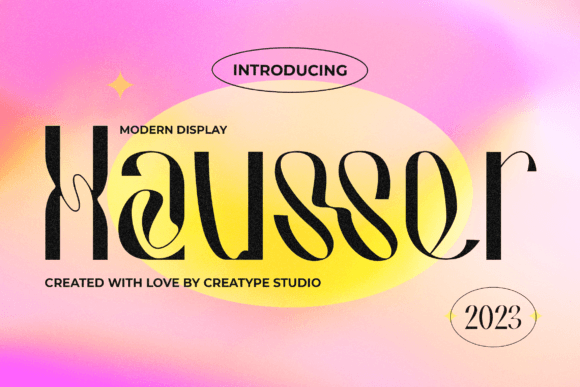
Dive into the world of Hausser Modern Display Font, a typeface that will ignite your creativity and leave a lasting impression on your audience. Created by CreatypeStudio, this masterpiece is not just a font; it's an adventure—a journey through a fantastical wonderland where your words can transform into art.
Feel the bold energy of Hausser, a display font that demands attention and sets your designs apart. Its unique, larger-than-life characters bring a touch of psychedelic charm to your projects, evoking a sense of wonder and intrigue. With Hausser, your words become an expression of your unbridled imagination.
Picture this: Your movie posters adorned with Hausser's vibrant, eye-catching presence, drawing moviegoers into a world of excitement and intrigue. Logos and branding projects come alive with Hausser's distinctive style, leaving an unforgettable mark on your audience. Wedding invitations and social media posts take on a life of their own, captivating and enchanting your readers.
Hausser is more than just a font; it's a statement of individuality, a testament to your creative spirit. Whether you're a seasoned designer or just starting, Hausser will unleash your imagination, taking your projects to new heights of brilliance.
So, embrace the extraordinary with Hausser Modern Display Font. Let your words dance and your designs dazzle. Create a visual spectacle that captivates and inspires, all with the power of Hausser.